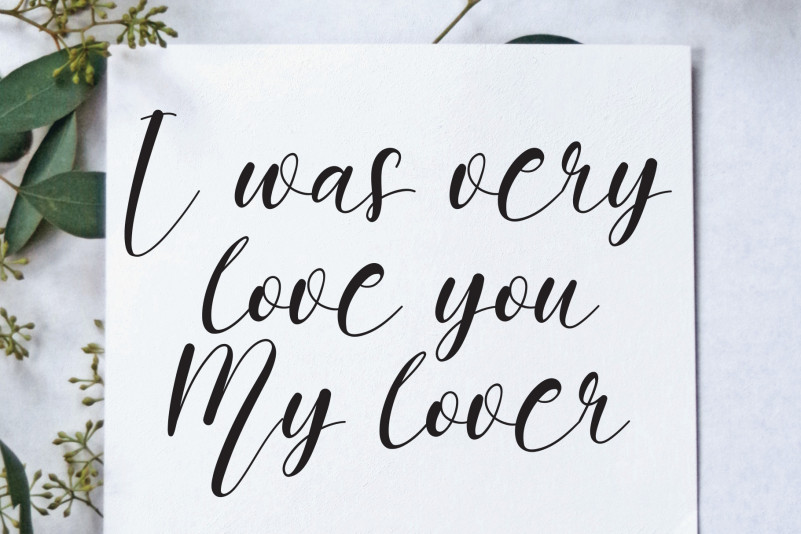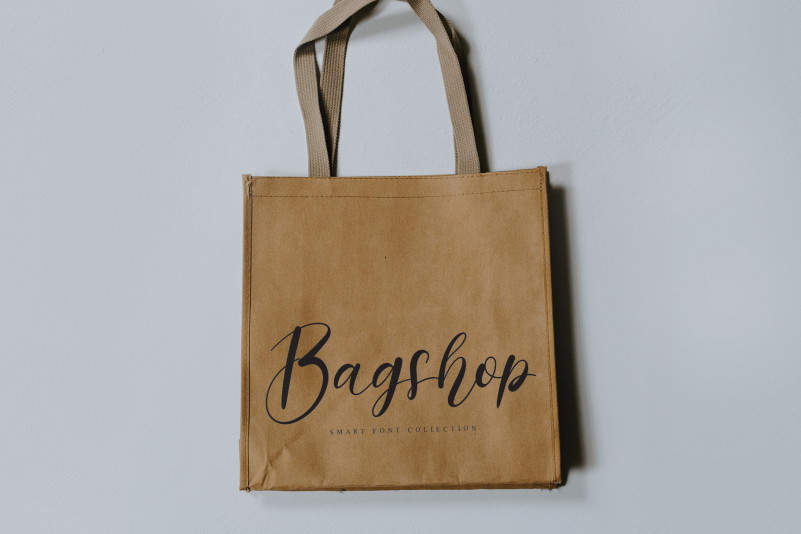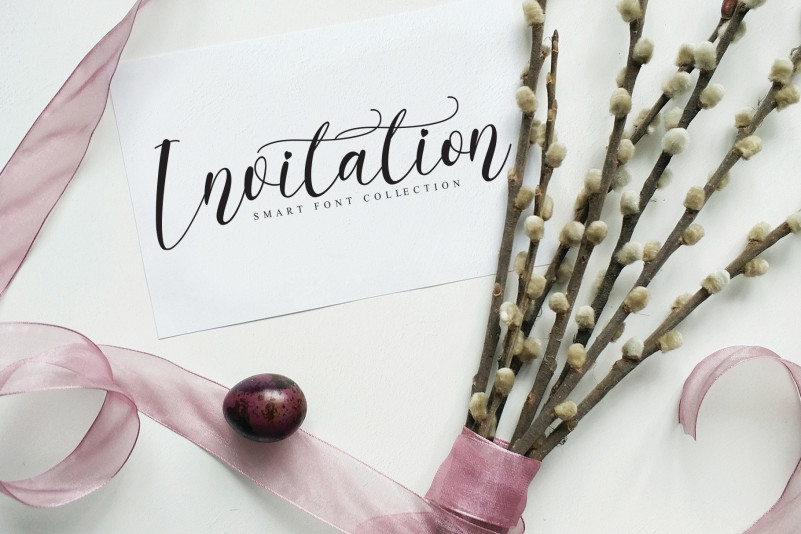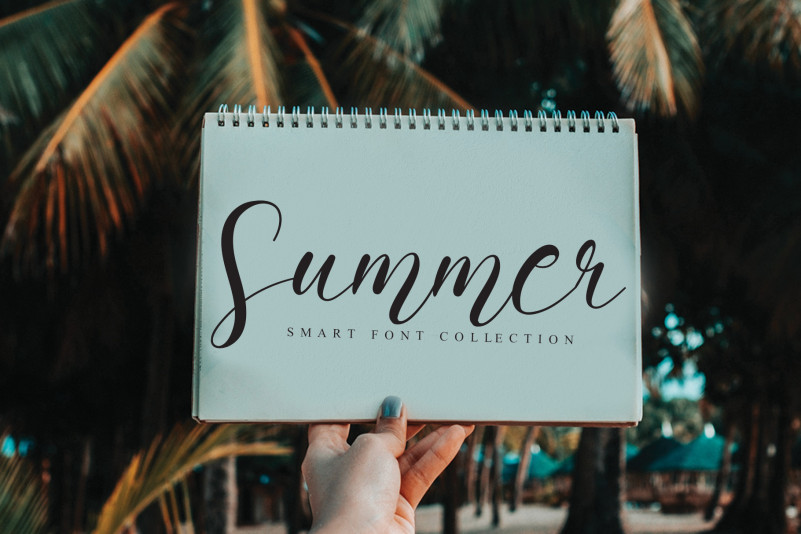
Beautiful Font
Beautiful Calligraphy Font
This is a charming and whimsical handwritten font. It has a modern and unique style and it will undoubtedly immerse your designs into a magical world.